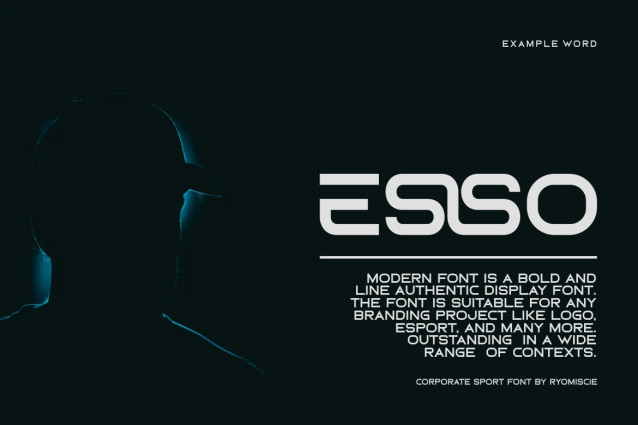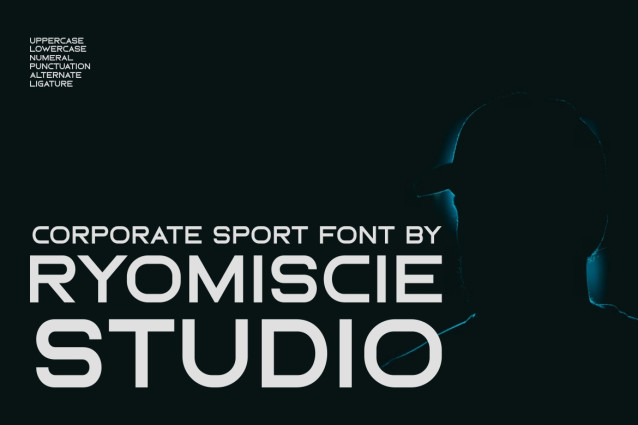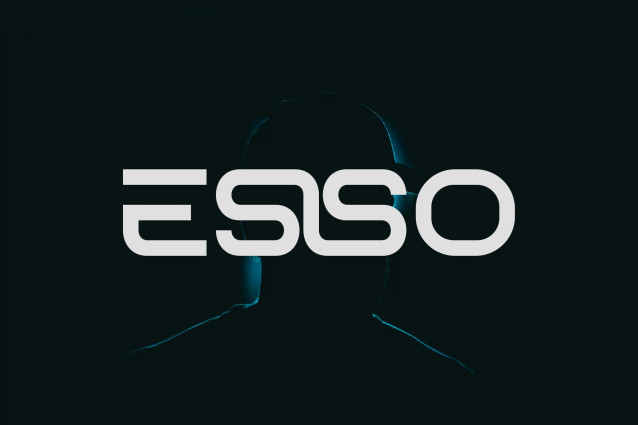
Esso Font
Esso Font is a bold and authentic display font. The font is suitable for any branding project like logo, esport, and many more. outstanding in a wide range of contexts.